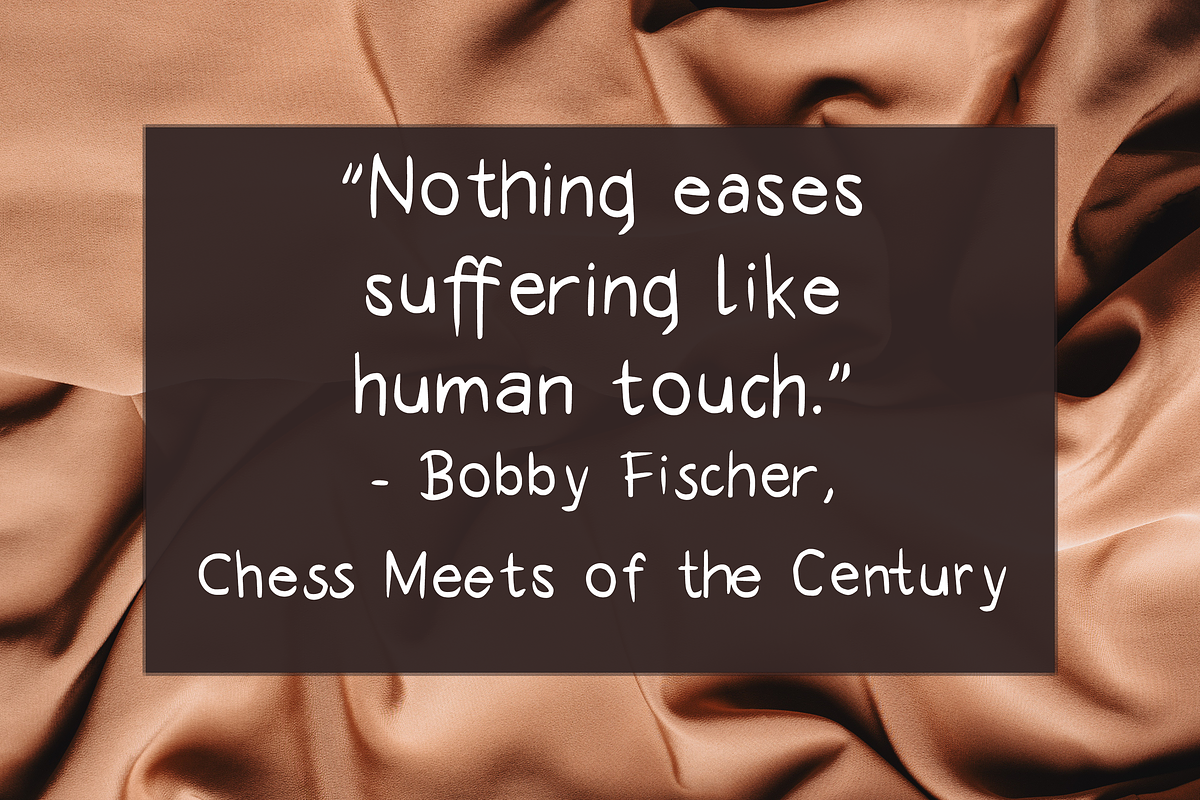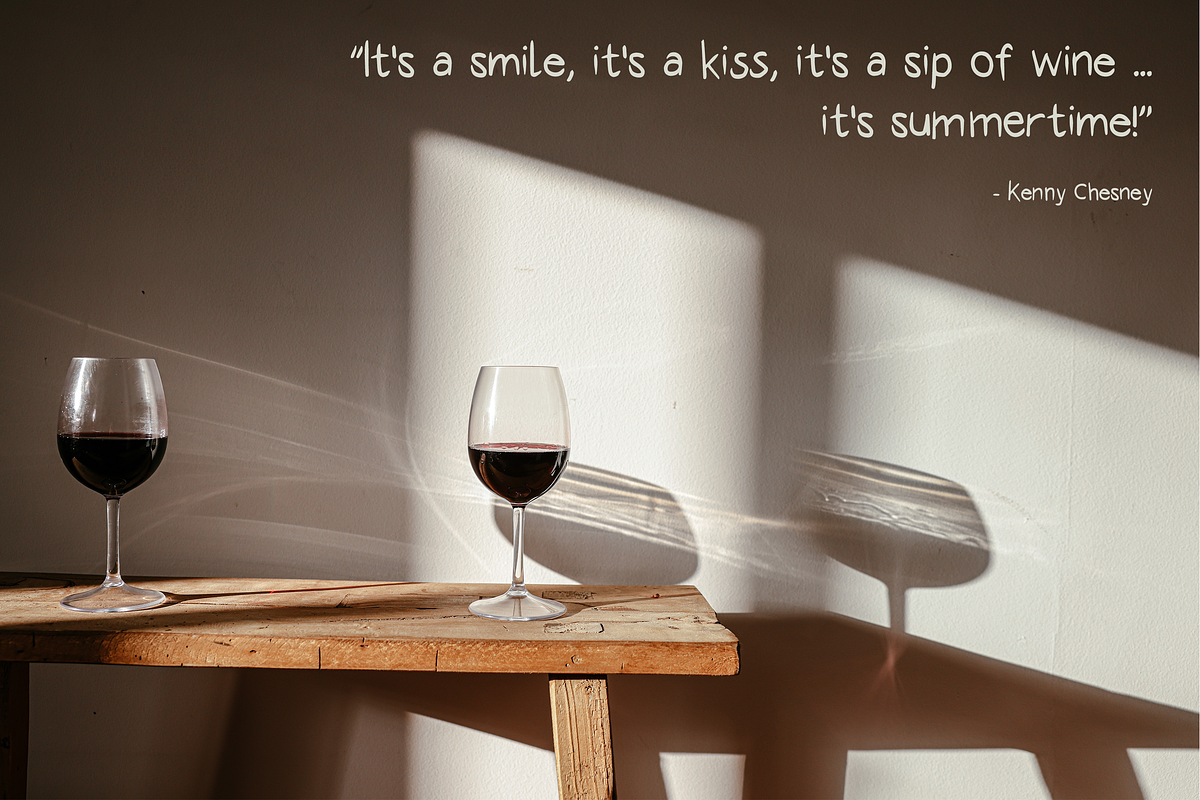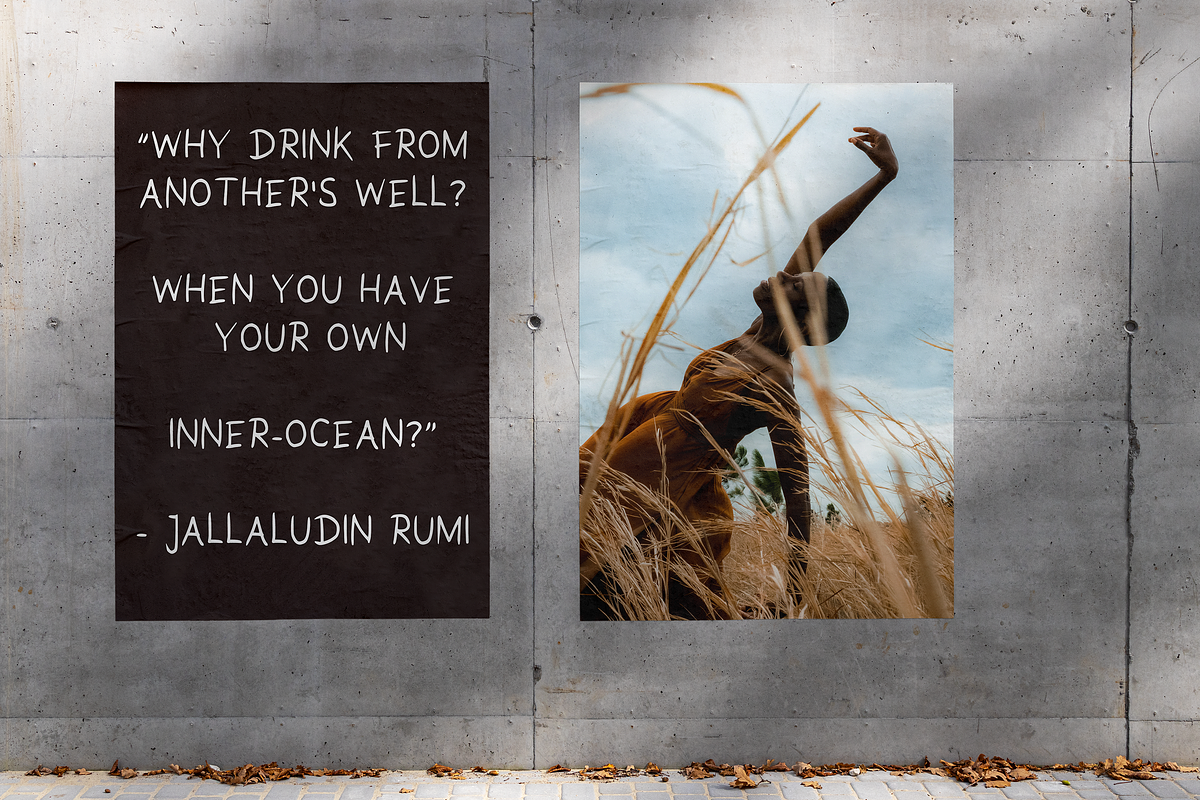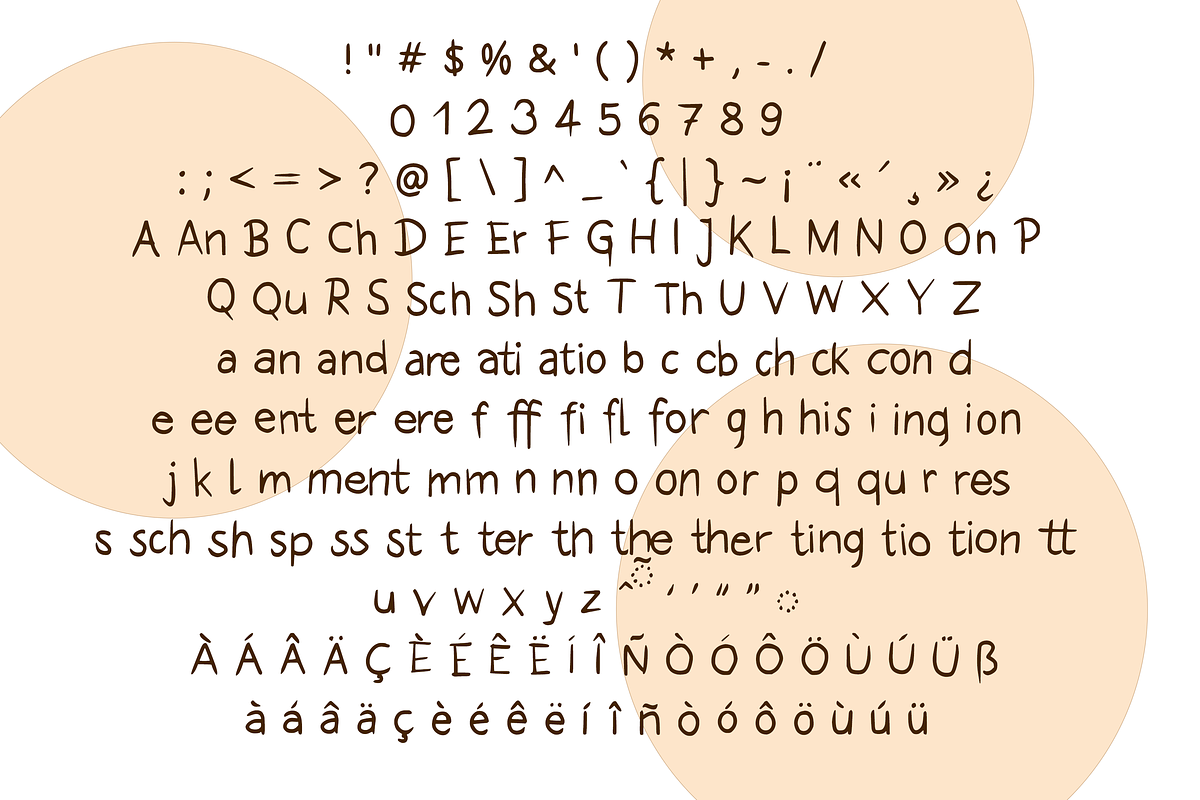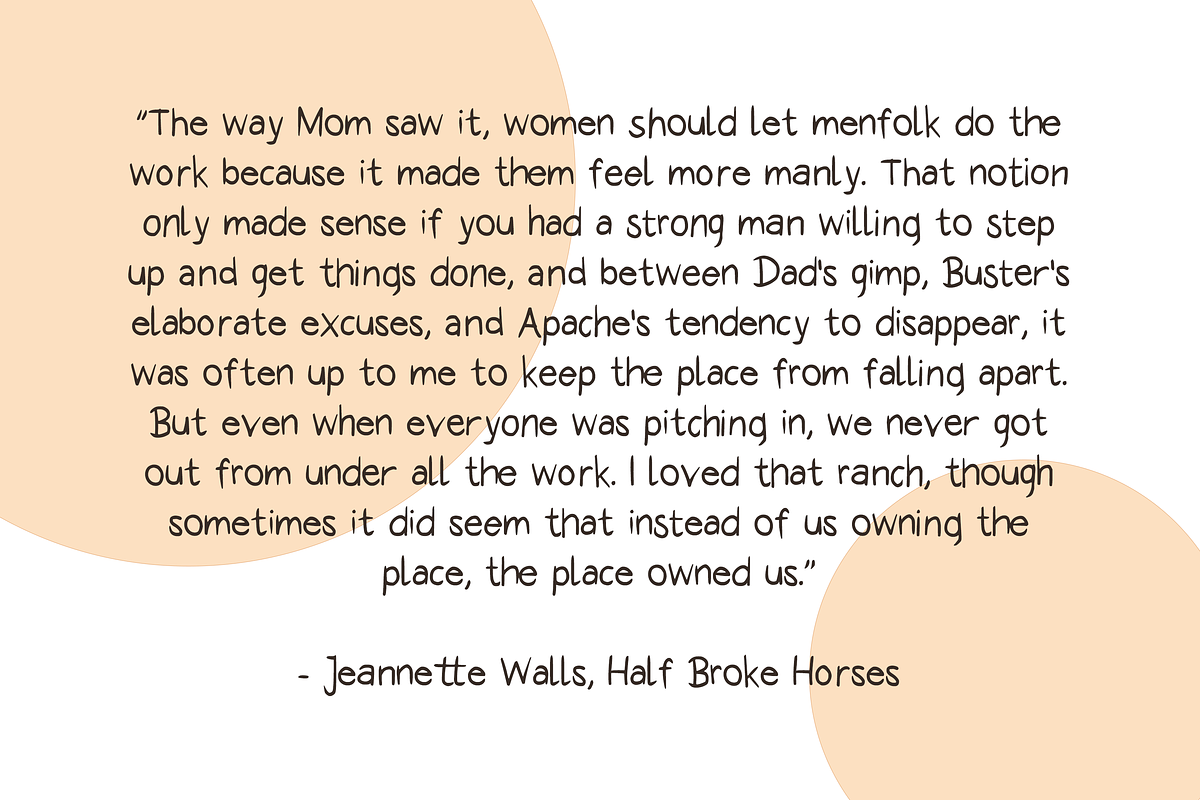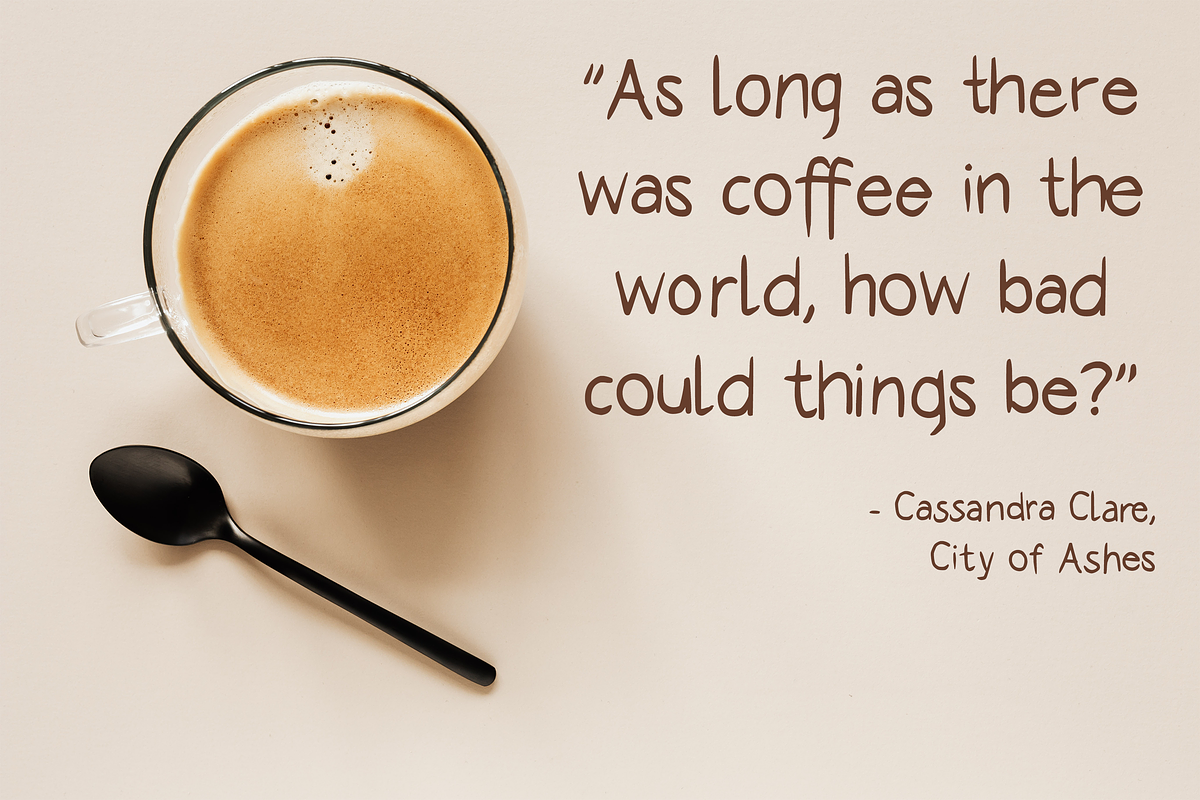
FarmHand: Earthy, Handwritten Font
*Quick overview:
- sans serif, handwritten,
- personal and down to earth
- 196 characters
- supports many languages, for example German, Italian, Spanish and English
- contains glyphs for the alphabet, numeric glyphs, punctation and many special characters
- contains ligatures for a more cohesive, distinct look
- can be used in marketing material, logo design, web graphics, posters and other projects.
Wanna know more? Looking for a font that embodies the essence of nature and a handcrafted touch? Say hello to FarmHand, a font designed to bring an earthy and warm feel to your creative projects. This sans serif typeface combines the handwritten style with imperfections that make it truly unique and a personal touch that exudes authenticity.
FarmHand supports a wide range of languages, allowing you to communicate your message effectively in German, Italian, Spanish, English, and more. From rustic logos to cozy branding materials, this font has you covered. It features an extensive collection of characters, including alphabet glyphs, numeric glyphs, punctuation marks, and special characters, enabling you to add those perfect finishing touches to your designs.
The beauty of FarmHand lies in its versatility. Whether you're aiming for a friendly and welcoming look or a down-to-earth aesthetic, this font effortlessly adapts to your creative vision.
Integrate FarmHand into your creative workflow and witness its transformative power. Whether you're designing websites, crafting social media graphics, or immersing yourself in any other creative pursuit, FarmHand is your trusted companion. Its ligatures ensure a cohesive and distinct look, enhancing the overall appeal of your designs.
Let FarmHand guide your creative journey and infuse your projects with the warmheartedness and authenticity of a handcrafted font. The scalable nature of this font, along with its compatibility with popular design software, ensures a seamless and joyful typographic experience.